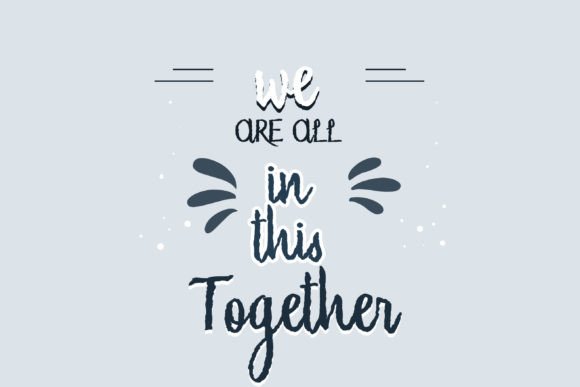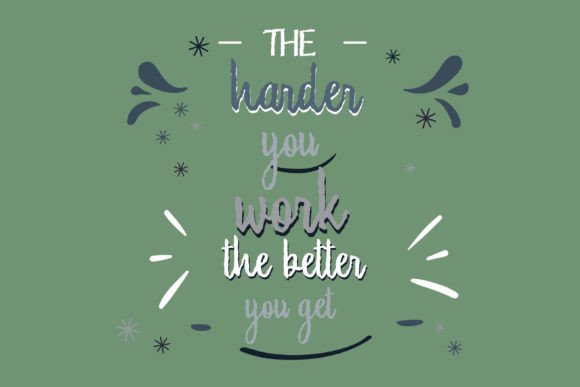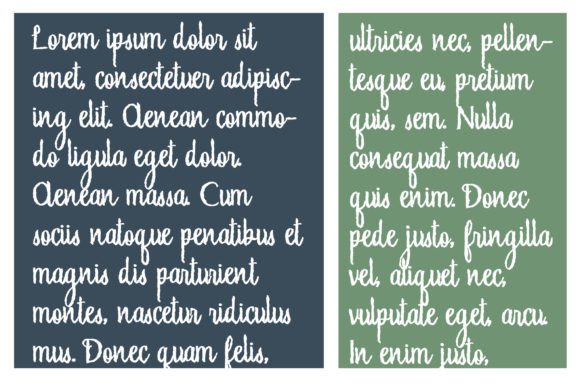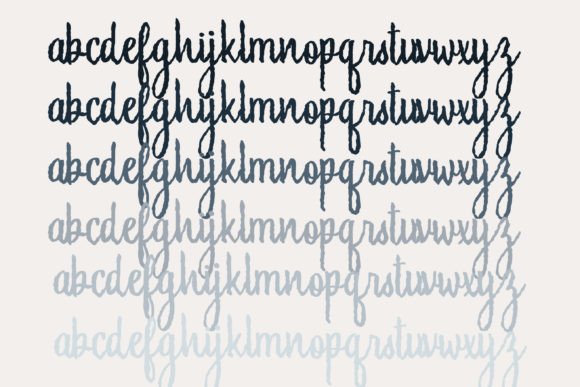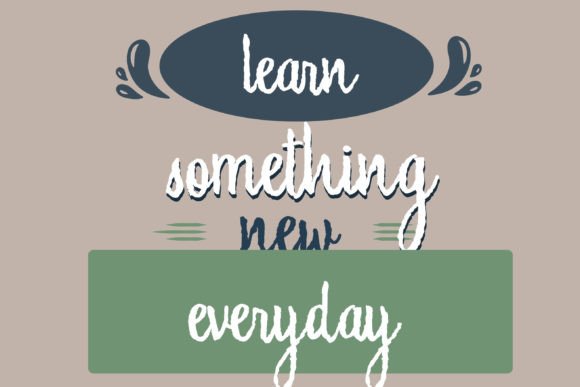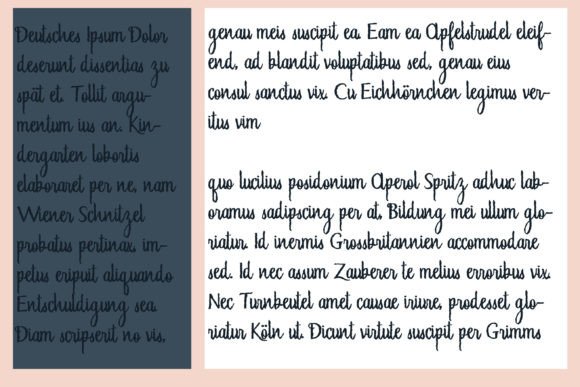
Introduction to Seafaring Font
Do you remember the moment when you stumbled upon the perfect design element for your creative project? For many designers, it’s that feeling of excitement and relief when you find the missing piece that brings your vision to life. For me, that moment happened when I discovered the Seafaring Font. This high-quality, free download has been a game-changer for my spooky-themed projects.
With its rough textures and handwritten script, the Seafaring Font adds a touch of eeriness to any design. Whether you’re working on a Halloween-themed poster or a creepy invitation, this font is sure to set the mood. And the best part? It’s completely free, making it an invaluable design resource for designers of all levels.
What sets the Seafaring Font apart from other free fonts is its versatility. Its transparent background makes it easy to overlay on any image, and its quirky design makes it perfect for adding a touch of personality to your creative project.
Key Features of Seafaring Font
- High-quality, hand-drawn design perfect for creative projects.
- Features a transparent background, allowing for easy layering and composition in your design.
- Includes a range of glyphs and characters, making it suitable for both display and body text.
- Designed with a clean, elegant aesthetic, ideal for use in branding, packaging, and editorial design.
Honest Review: Seafaring Font
- ✨ High-quality design: The Seafaring Font has a unique and elegant feel to it, making it perfect for nautical or ocean-themed designs.
- ✨ Transparent background: This feature allows for easy integration with any background image or color, giving you complete control over the design.
- ✨ Wide range of uses: The Seafaring Font is versatile and can be used for various design projects, from logos to signage.
However, I did encounter a few limitations while using the font.
- ⚠️ Limited font styles: The Seafaring Font only comes in a few styles, which may limit its use in certain creative projects.
- ⚠️ Not ideal for small text: Due to its elegant design, the Seafaring Font may not be the best choice for small text or headings.
Overall, I’m impressed with the Seafaring Font’s high-quality design and free download option. While it may have some limitations, it’s a great resource to have in your design library, especially for nautical or ocean-themed projects.
Common Use Cases and Tips
The Seafaring Font is perfect for creating nautical-themed designs, such as invitation cards, posters, and flyers. To get the most out of this font, use it in conjunction with other design elements that evoke a sense of adventure and freedom. Additionally, take advantage of the transparent background feature to create a seamless design that integrates well with other elements.